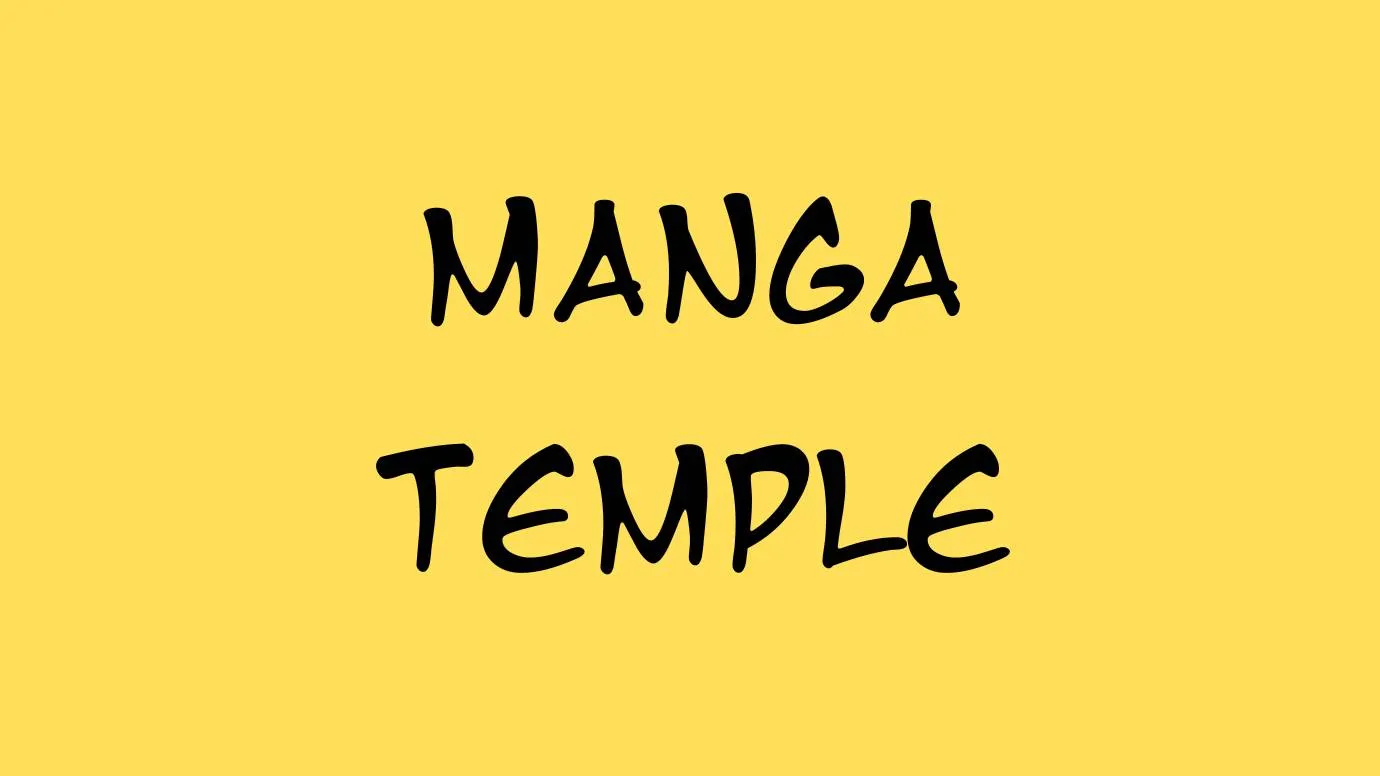
Manga Temple Font Family is a popular fancy font. This staggering typeface was mainly developed by Blambot Comic Fonts for the first time. And this typeface is categorized as fancy family.
It has a lot of advanced features that make it cohesive. This playful typeface allows the use of the generator tool of this font family and easily converts simple designs to colorful ones. Blue Spirits Font is similar to this typography in different terms.
Manga Temple Font